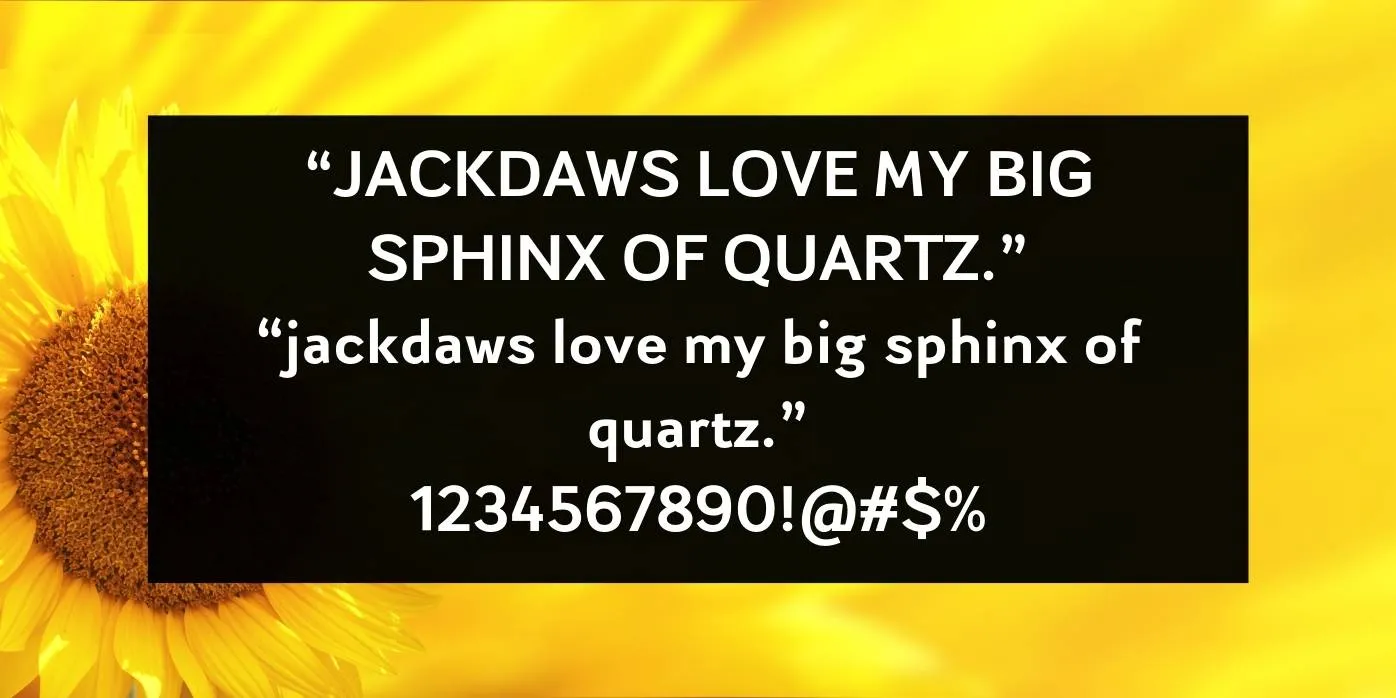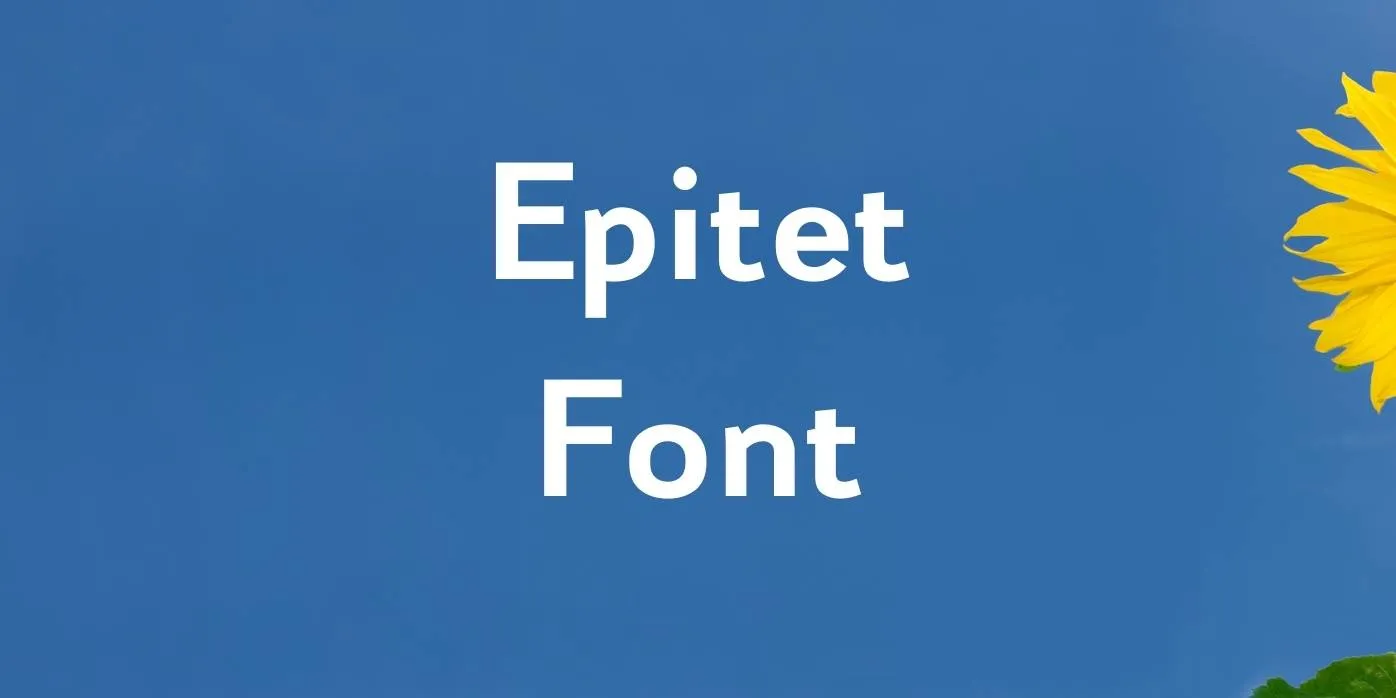
Epitet Font
Epitet Font is a sans-serif typeface created by Swiss designer Philippe Desarzens in 1998. The font is named after the Greek word “epithet”, which means “attribute” or “title”. This Font is characterized by its large x-height, wide proportions, and round shapes. The glyph has a unique design that makes it recognizable.
The shapes are simple and there is a consistent width between the strokes. This contributes to the good legibility of the typeface. This font is also easy to upload in all editing software like Microsoft Word, and Adobe Photoshop. This Font was designed with both digital and print use in mind.
It works well in small sizes and can be used for long passages of text.